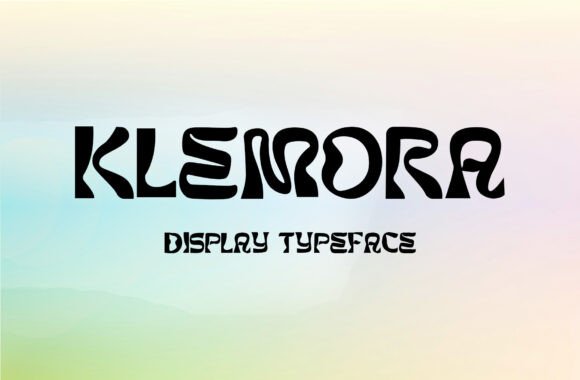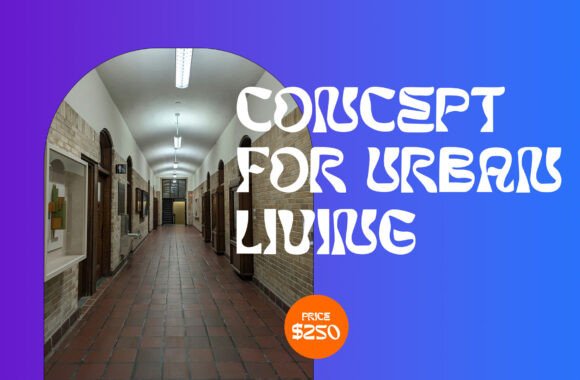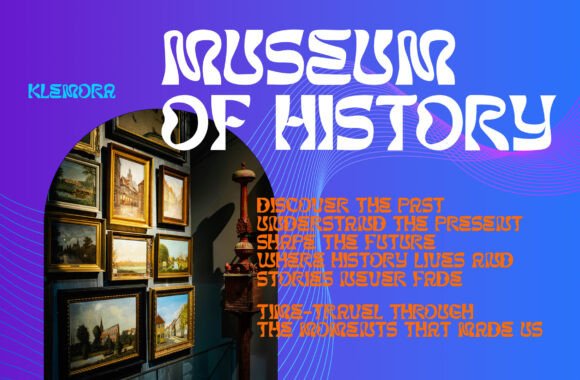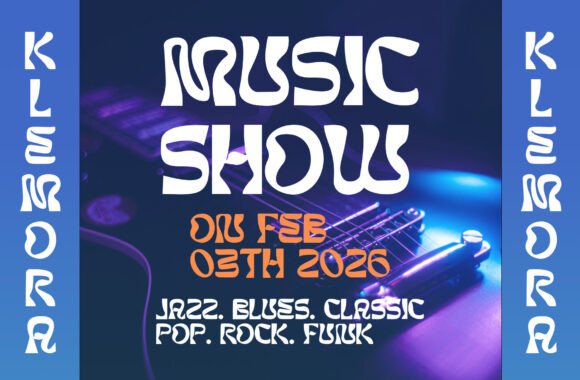
Klemora Font
About the Klemora Font
Get ready to be inspired by Klemora Font, a fresh and dynamic typeface for modern creators. Klemora is a bold, modern display font. It’s modern and classic with a unique and classy look. Perfect if you need a little fun in your projects. Perfect for editorial projects, logo designs, web fonts, clothing brands, product packaging, magazine headers, or simply as a stylish text overlay on any background image.
Klemora’s bold strokes make it ideal for headlines, short impactful statements, and branding applications where a strong visual presence is needed. It excels in logo design, posters, and packaging, adding a touch of modern elegance. However, its weight and strong character make it less suitable for body text or UI elements requiring high readability over extended lengths.
Consider pairing Klemora with a clean sans-serif like Lato for a balanced contrast, or a more playful script font like Pacifico for a fun, slightly retro feel. For a sophisticated look, a classic serif like Garamond could complement its modern boldness.
Klemora projects a confident, modern, and slightly playful personality. Brands seeking to convey boldness, innovation, or a touch of sophisticated fun will find it a strong asset.